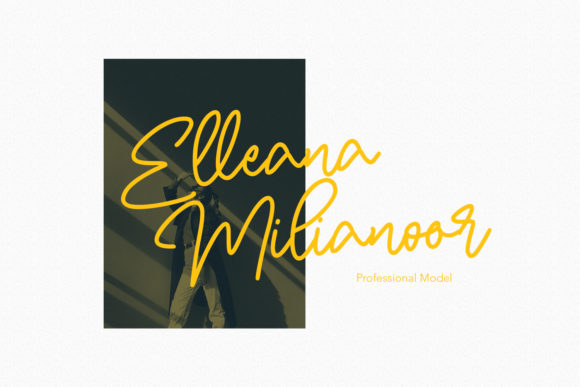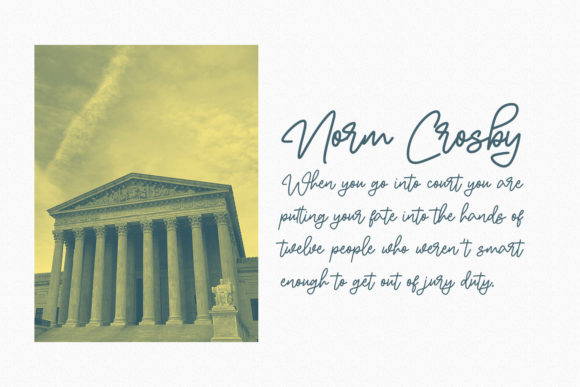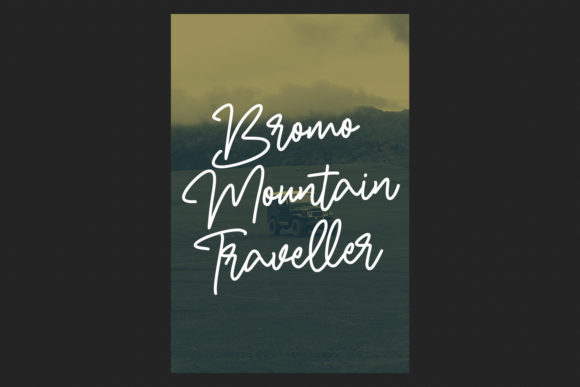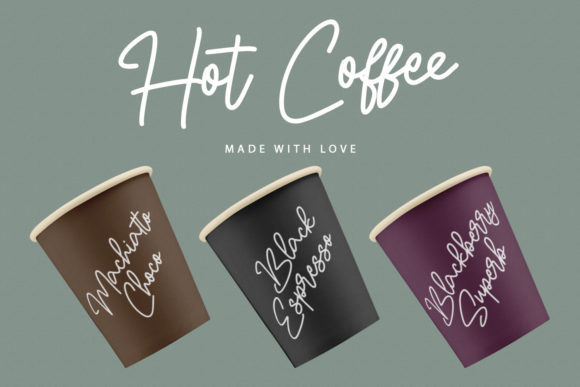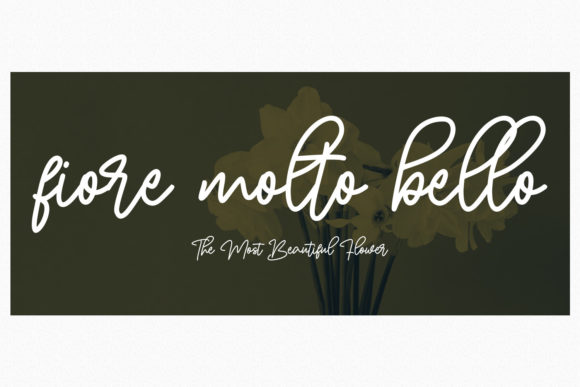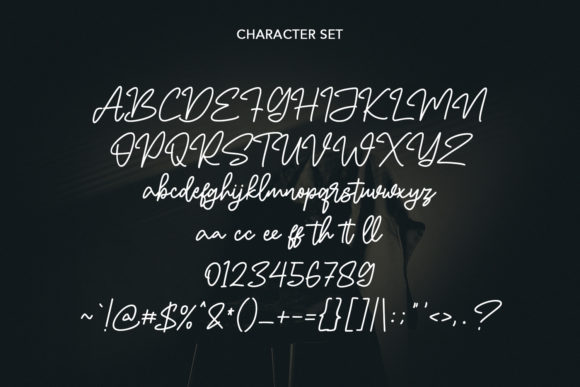
Introduction to North Glides Font
As a designer, there’s nothing quite like the thrill of discovering a new font that perfectly captures the essence of your creative vision. I still remember the moment I stumbled upon the North Glides Font – it was like a breath of fresh air in the world of typography. The gentle curves and flowing lines of this beautiful font had me hooked from the very first glance.
What I love most about the North Glides Font is its versatility – it’s perfect for a wide range of design projects, from elegant wedding invitations to playful children’s book illustrations. Whether you’re looking to add a touch of whimsy or sophistication to your work, this font is sure to deliver. And the best part? It’s available for free download, making it an invaluable resource for designers on a budget.
With its high-quality design and transparent background, the North Glides Font is a must-have for any serious designer. Whether you’re working on a creative project from scratch or need a design resource to elevate your existing work, this font is sure to bring a touch of magic to your designs.
Key Features of North Glides Font
- Features a transparent background, allowing for effortless customization and blending with other design elements.
- Designed with a unique, modern aesthetic, making it an ideal choice for contemporary design projects.
Honest Review: North Glides Font
As a designer, I’m always on the lookout for high-quality design resources that can elevate my creative projects. Recently, I had the chance to try out the North Glides Font, and here’s my honest review.
- High-quality design: The North Glides Font has a sleek, modern look that’s perfect for any creative project.
- Transparent background: This font has a transparent background, which makes it easy to use on any design project, whether it’s a logo, poster, or website.
- Limited character set: One of the limitations of the North Glides Font is that it has a limited character set, which can be a problem for designers who need to use a wide range of characters in their projects.
Overall, I was impressed with the North Glides Font, especially considering it’s a free download. While it may have some limitations, it’s a great design resource for any creative project. I would definitely recommend it to fellow designers looking for a high-quality font with a modern look.
Tips for Getting the Most Out of North Glides Font
For the best results, use North Glides Font in a design with a clean and minimal background. The font’s transparent background allows it to stand out, making it perfect for creative projects that require a high-quality design resource.
North Glides Font is commonly used in graphic design, logo creation, and typography projects. Its high quality and transparent background make it an ideal choice for designers looking for a versatile and effective design resource.
Montserrat compares to North Glides Font in its modern and sleek appearance, but it lacks the cursive and script-like elements that make North Glides Font unique. When to use Montserrat: for projects that require a clean and minimalist design, such as fashion magazines or tech startups.